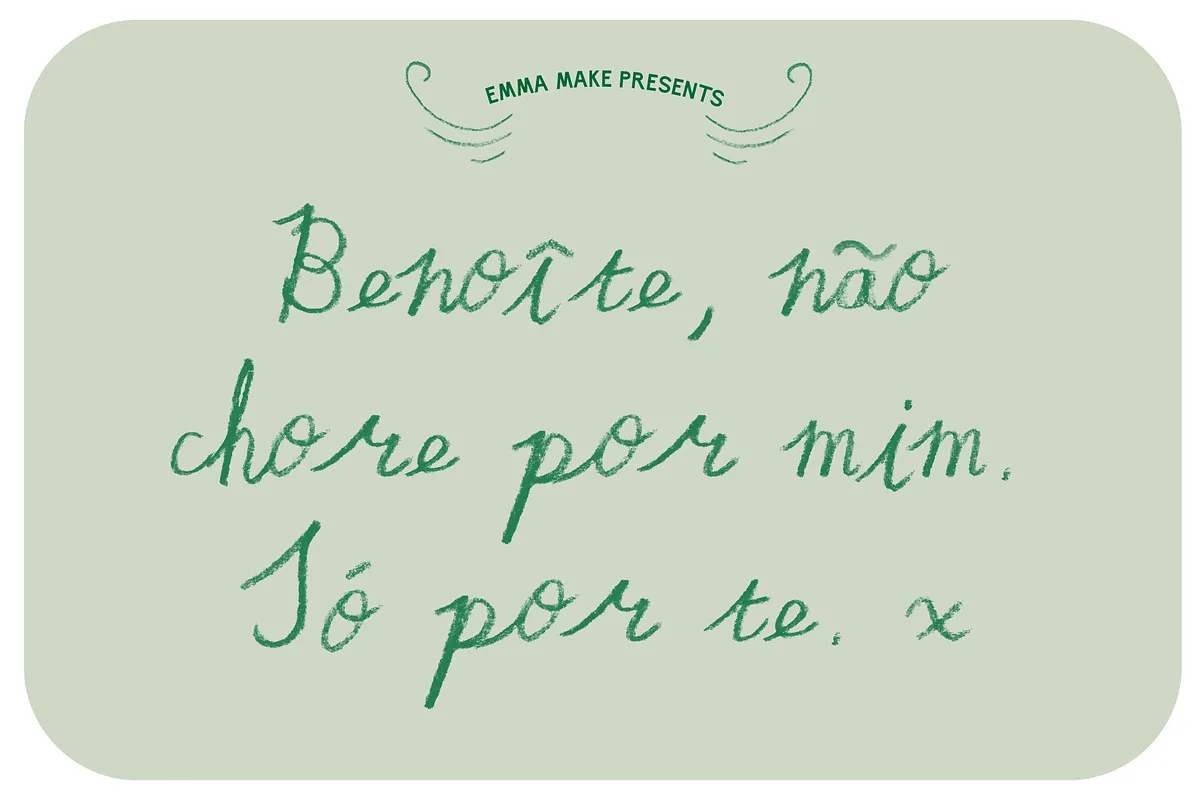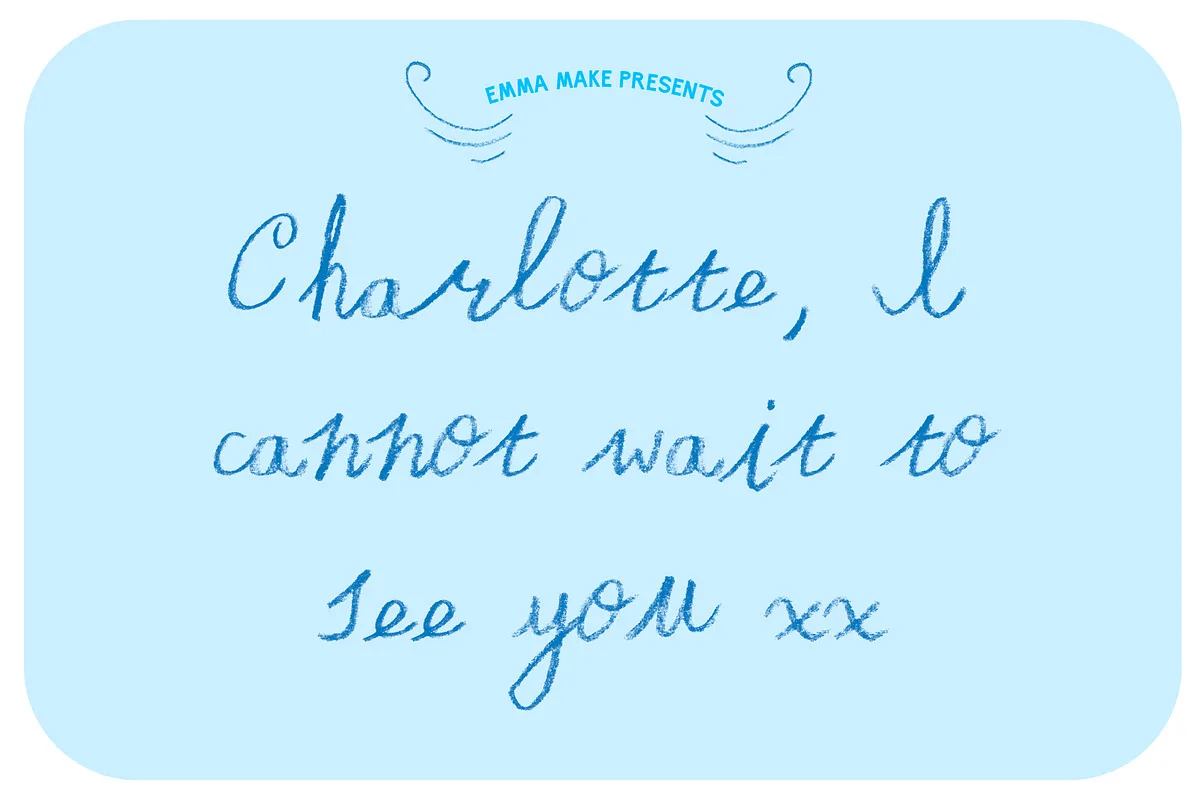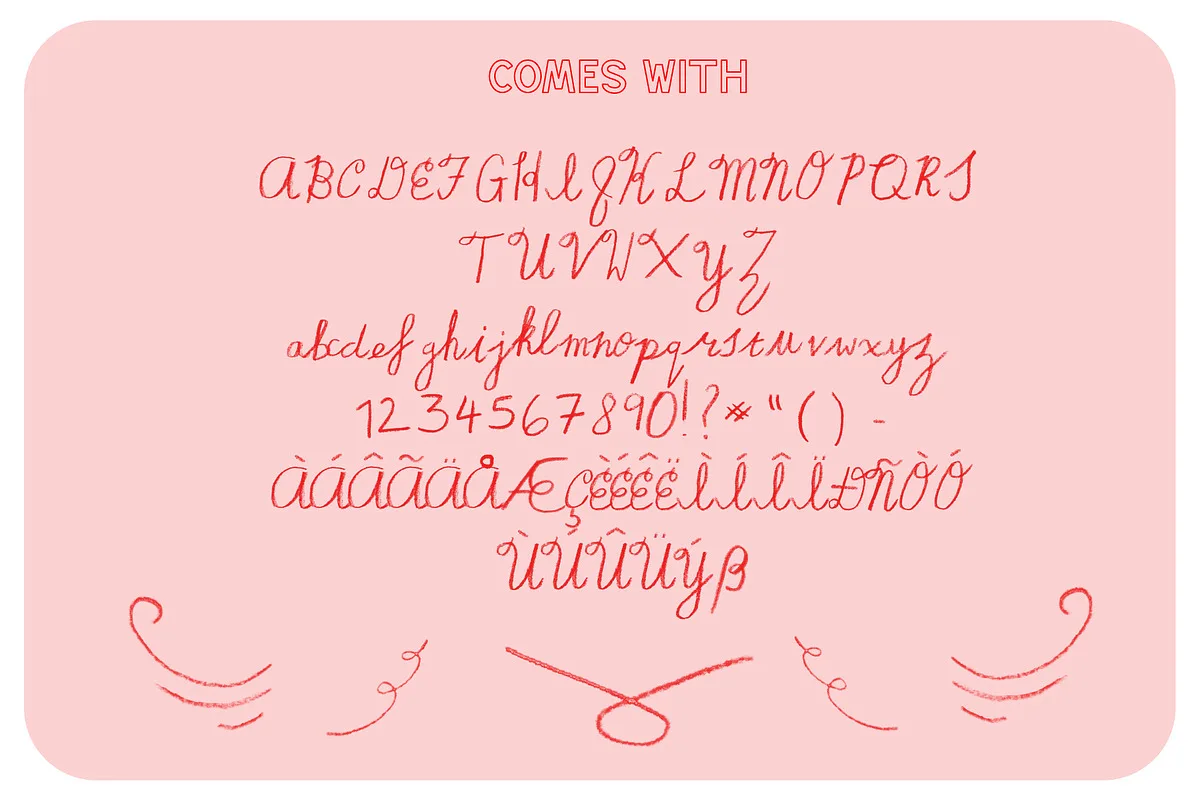
Dear Camille is a sweet handwritten pencil crayon type with as much tenderness and character as a love letter. Perfect for letters, stationery, invites and websites. The font comes in two files. The best quality one is only useable in Photoshop, the easily editable version is useable in any program and is easily edited.